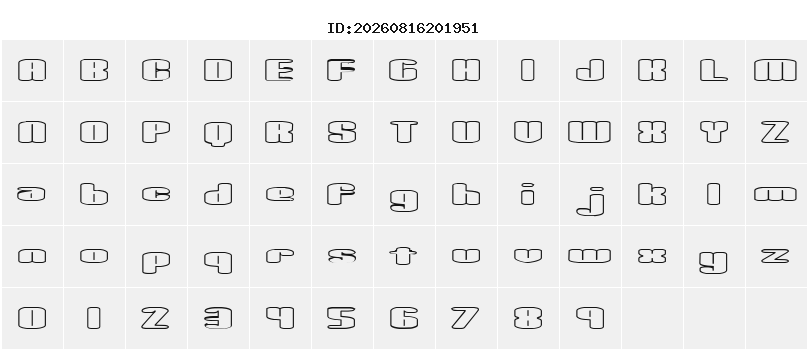
Spacious Outline (BRK) Preview
• Font Name: Spacious Outline (BRK)
• Full Font Name: Spacious Outline -BRK-
About Spacious Outline (BRK).ttf
Spacious Outline (BRK).ttf is a modern, elegant sans-serif font designed for ultimate readability and visual harmony. Perfect for branding, headlines, web design, and print materials.